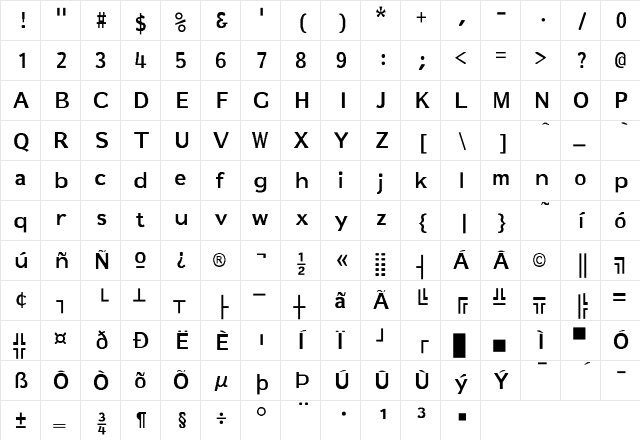
Marke-Bold Regular
Design Context for Marke-Bold Typeface
Marke-Bold is a composed and adaptable typeface that performs quietly and consistently across a wide range of design contexts. The heavy weight commands attention and anchors typographic hierarchies.
Pro Tip: Use Marke-Bold in both headline and body roles to test its range before committing to a single application.